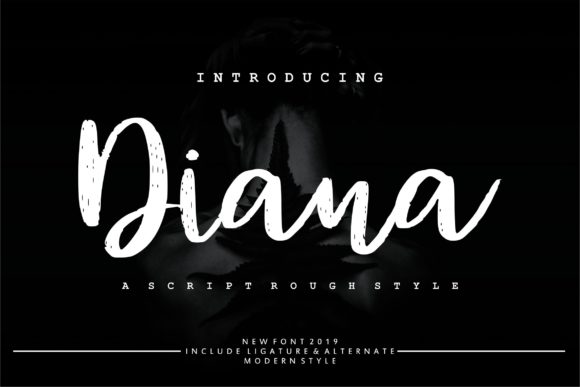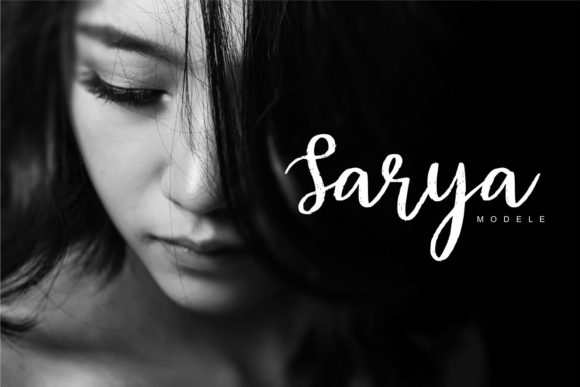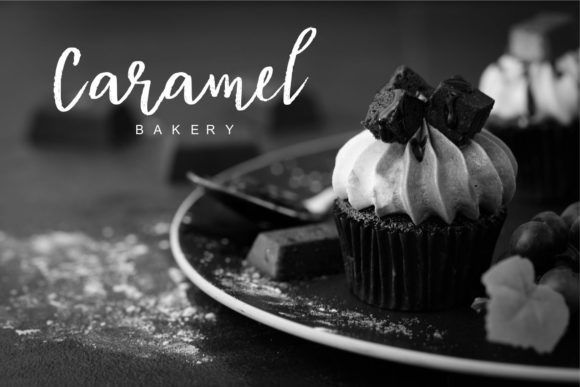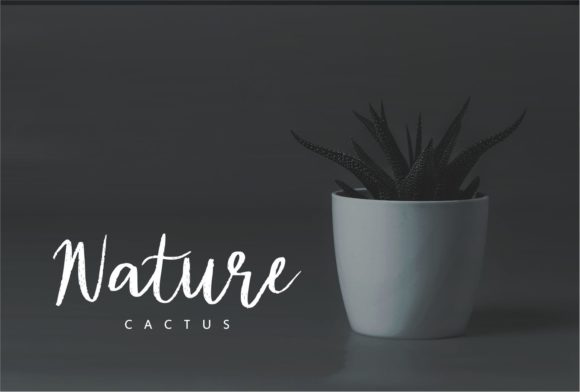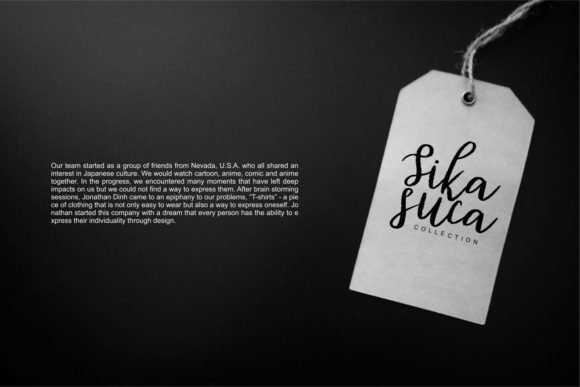
Diana Rough Font
About Diana Rough Font
Diana Rough is a simply beautiful handwritten font with a smart feel. It will add a unique feel to any design project.